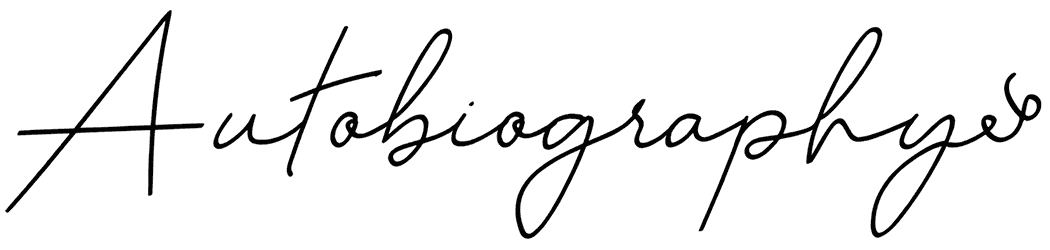
Autobiography Font
Handwritten font adds distinctive qualities to your text. With Autobiography, you have a naturalistic element for typography with its neat, slim, hand-drawn characters that are equipped. Not only does it give a modern feel, but it’s also informal and admiringly fashionable.
Even if it’s not your regular sans serif font, the innovative calligraphy style makes it more powerful than any human handwriting. The fact that it is suitable for children’s books, scripts, and school books is why it’s awesome and professional!
Autobiography is a fashionable script font. This font is neatly crafted and highly detailed. Whatever the topic, this font will be a wonderful asset to your font library, as it has the potential to enhance any creation.